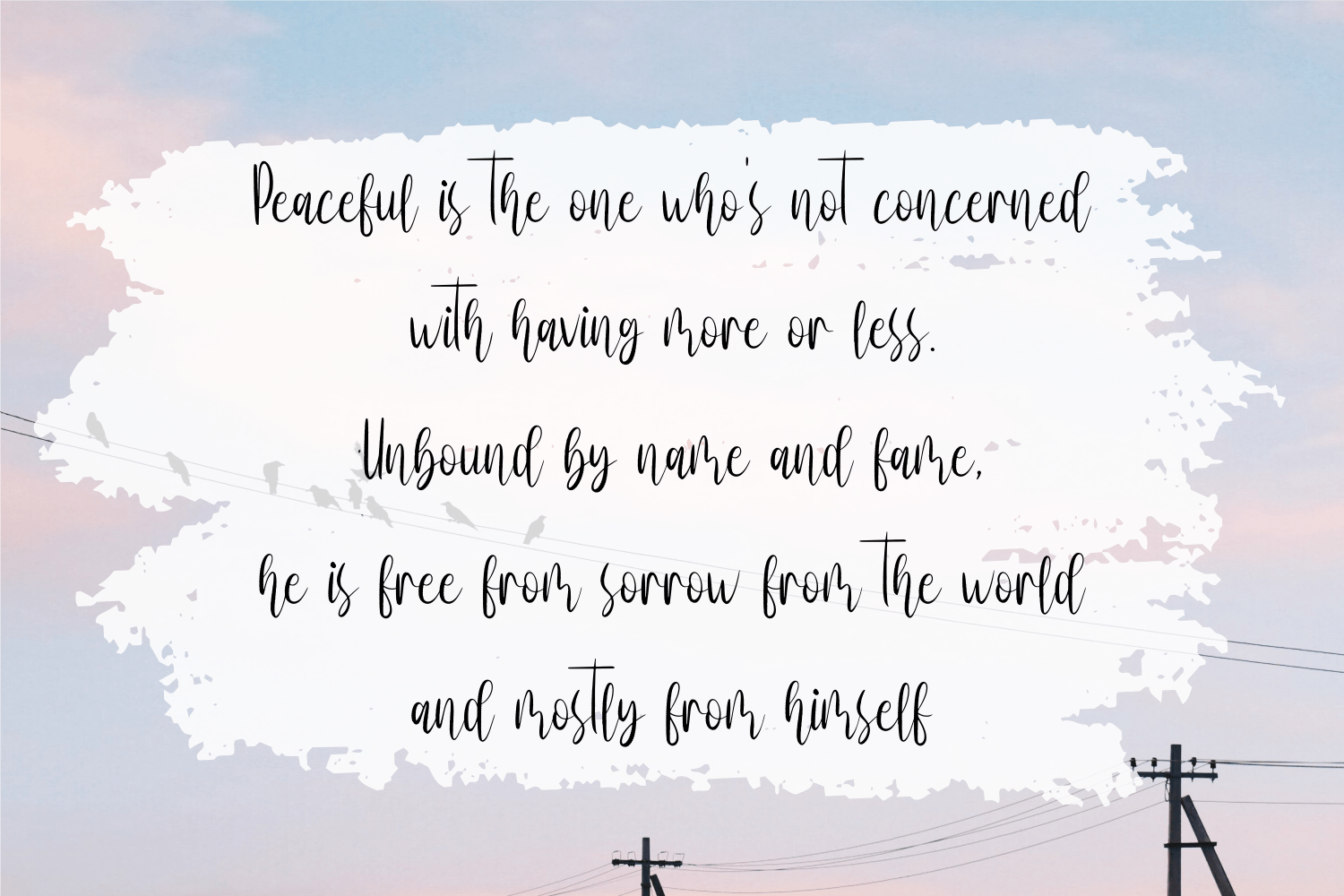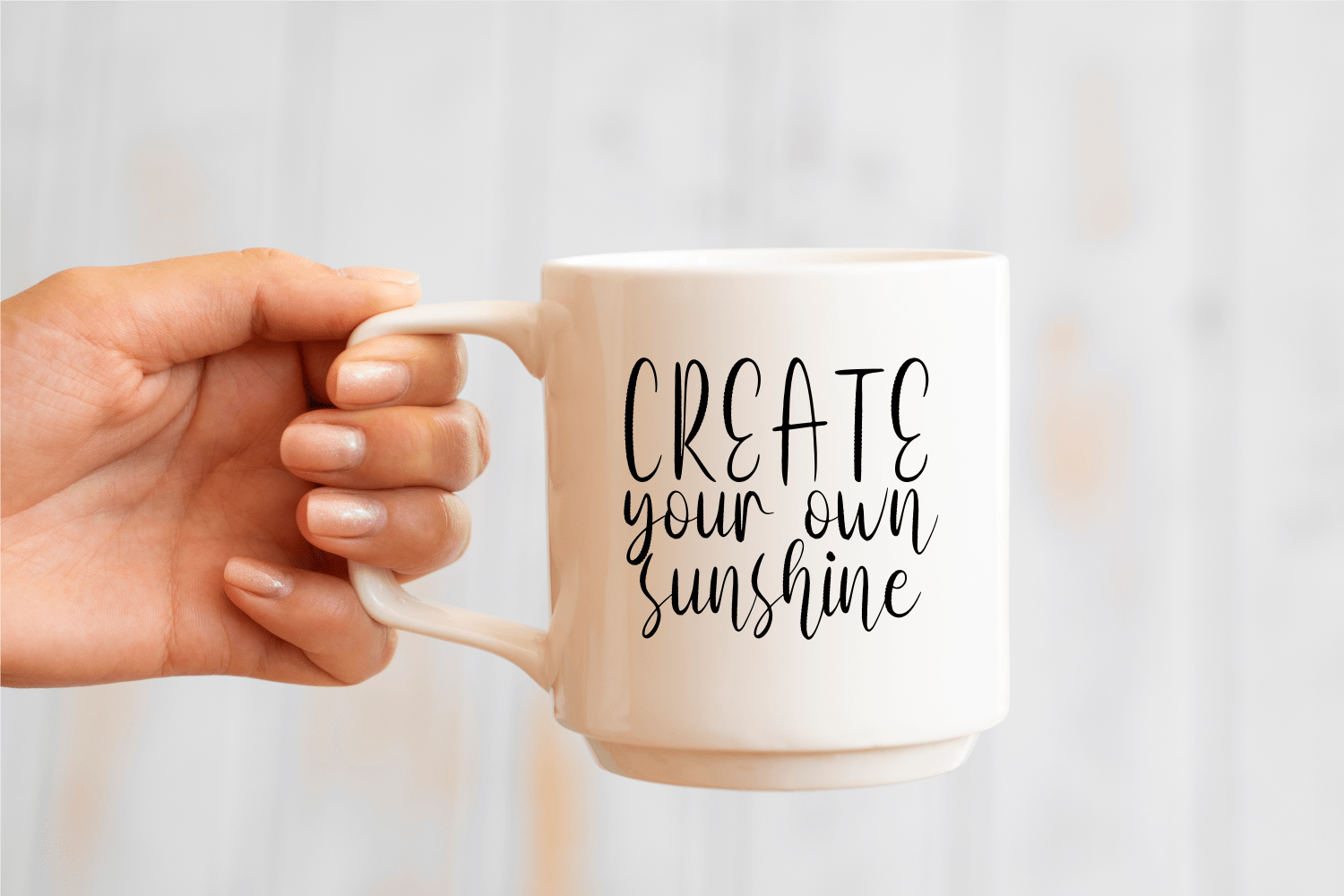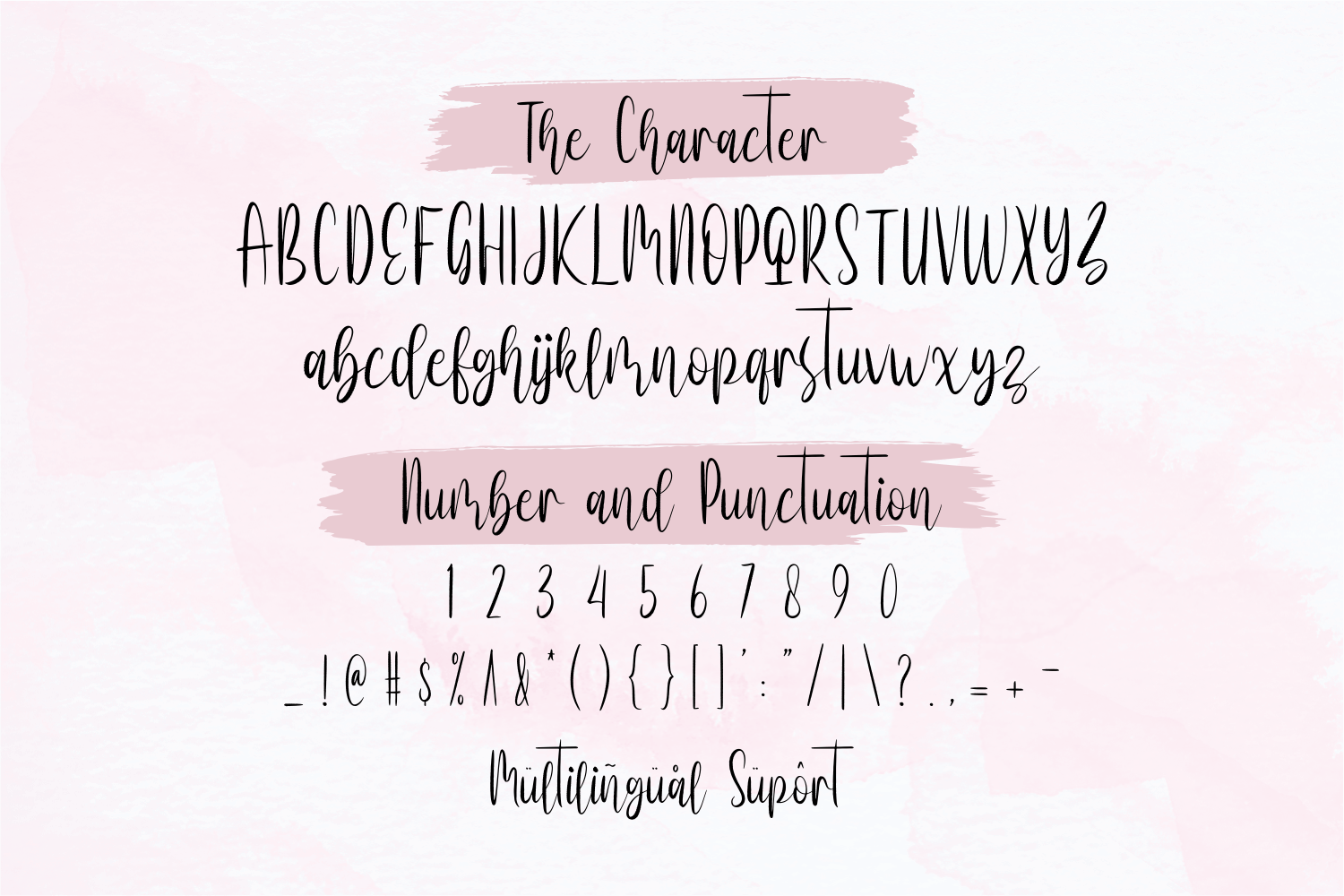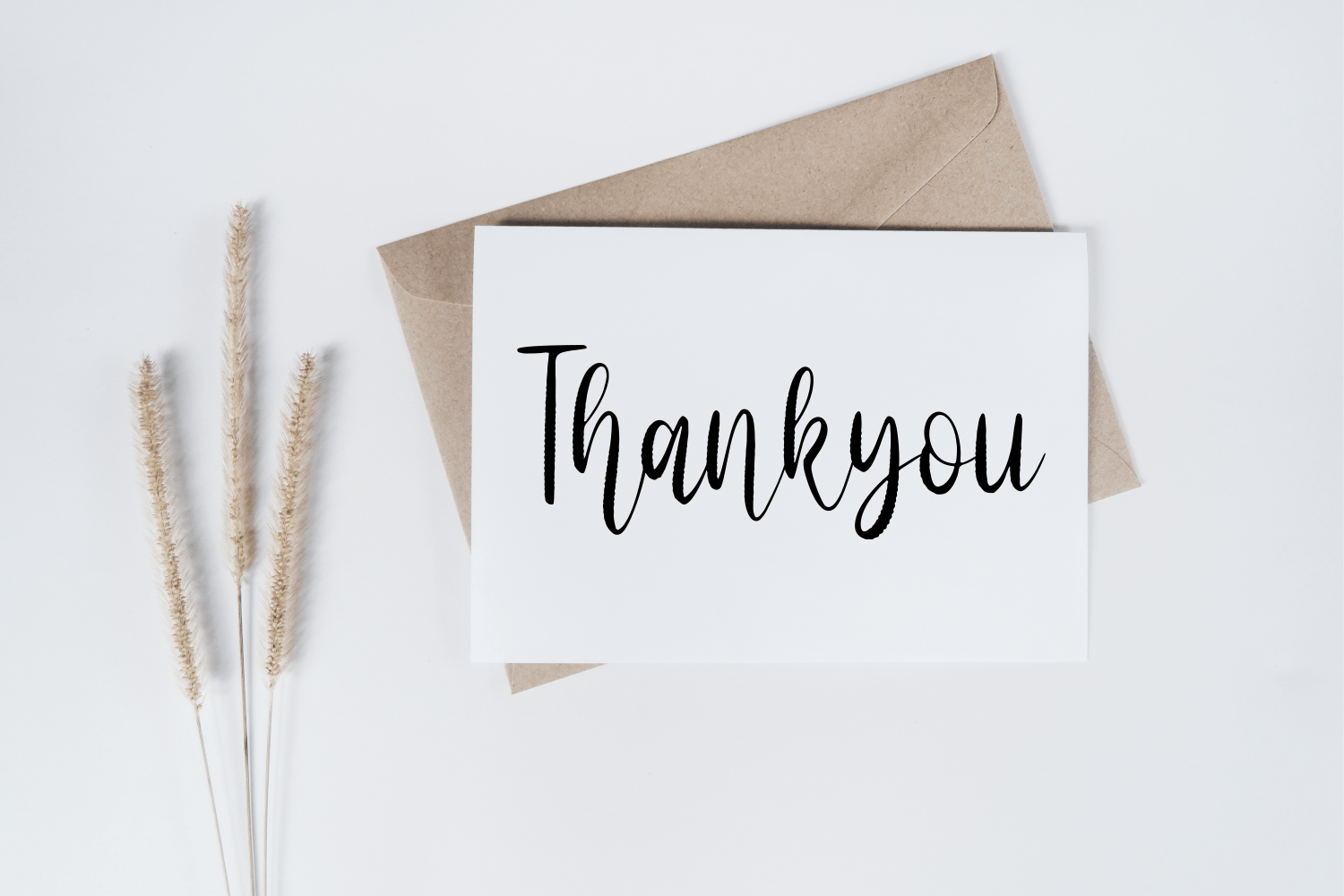
Pretty Rough Font
Pretty Rough Script Font is a beautiful script font. You can use it for various projects, such as blog posts, logos, branding, ads, invitations, greeting cards, planners, photo albums, decorations, and much more.